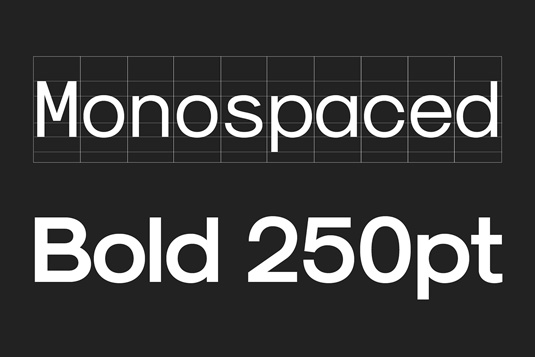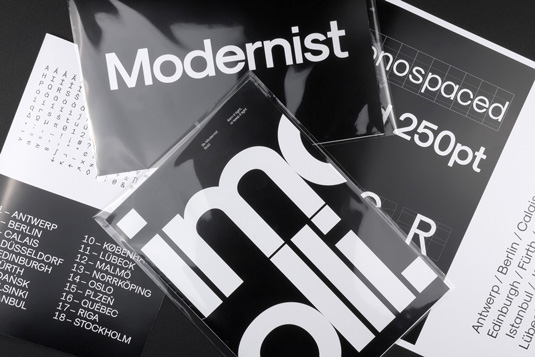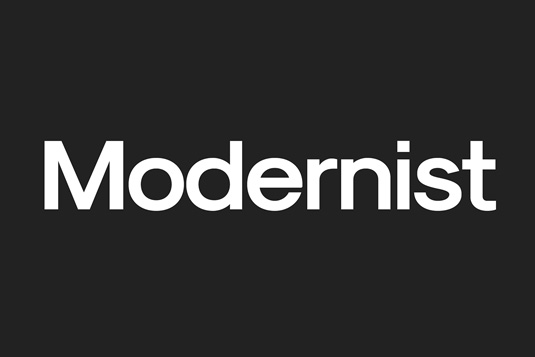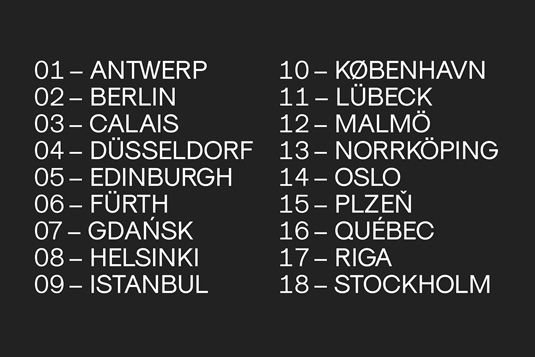
Font of the day: Sk-Modernist
Sk-Modernist by Sean Kane
Minimal, clean typeface Sk-Modernist was created by designer Sean Kane. "The aim of the typeface was to create an amalgamation of a modern Grotesk, like Helvetica, with a simpler geometric style, like Avant Garde," Kane comments on his website.
"Sk-Modernist has been designed specifically for the digital age, each letterform being optically adjusted using a mathematical system rather than the traditional typographers eye. This approach has resulted in a typeface that displays exceptionally well in digital mediums."